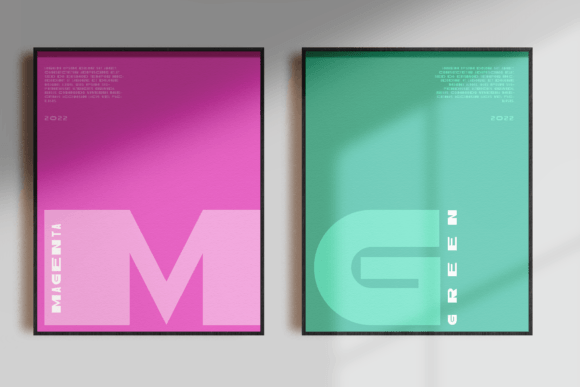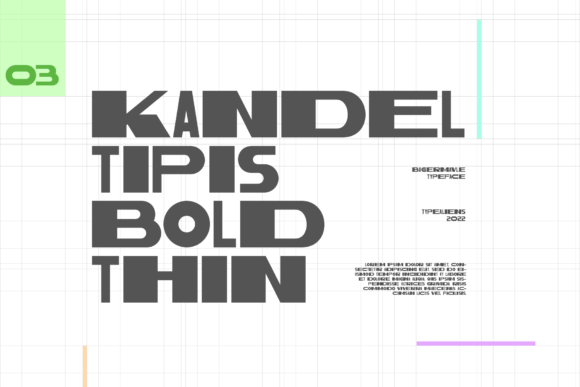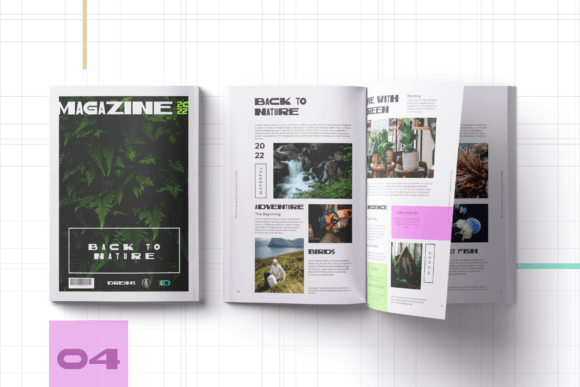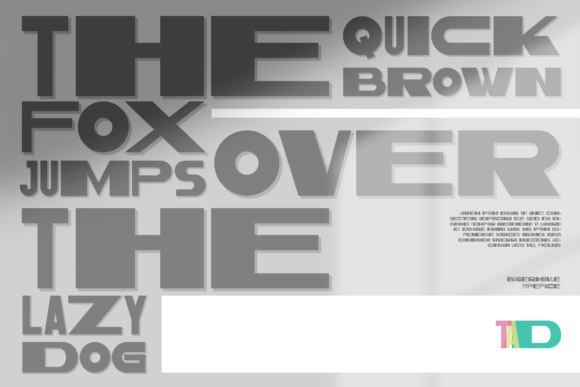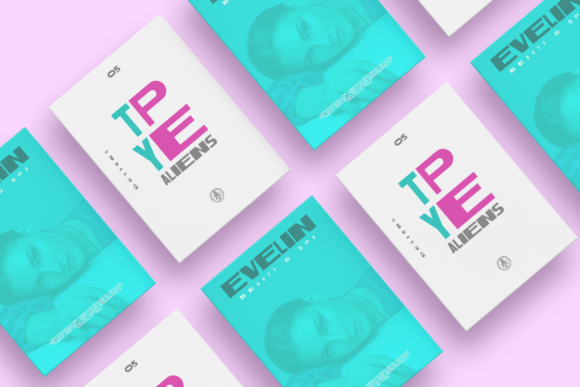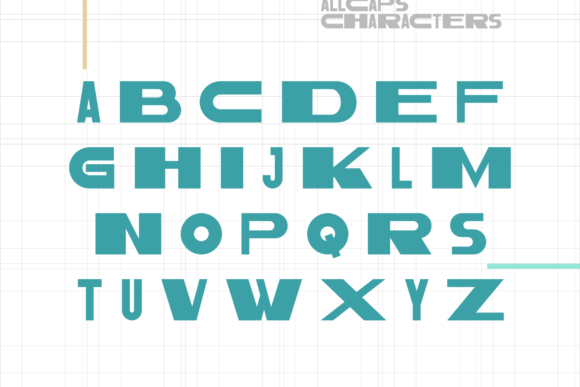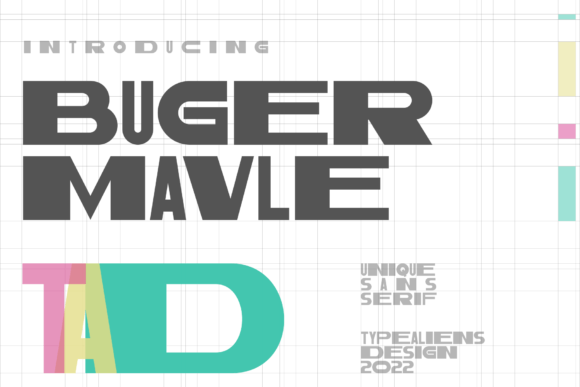
The Bugermavle Font: Elevate Your Designs with a Unique Display Font
Have you ever been in the middle of a design project, and suddenly, you just can’t seem to find the right font? I recall a particularly frustrating moment when I was working on a magazine layout, and my client requested a font that was “modern, clean, and eye-catching.” After scouring the internet for hours, I stumbled upon the Bugermavle font, and it instantly became the perfect fit. In this article, I’ll share my experience with this unique display font and provide a comprehensive guide on how to make the most of it.
- ✅ Unique and eye-catching design: Bugermavle is a standout font that will instantly elevate your designs.
- ✅ Modern and clean aesthetic: Perfect for designs that require a contemporary feel.
- ✅ Versatile: Suitable for a wide range of applications, from magazine titles to website headers.
- ⚠️ Limited use in body text: Due to its display nature, Bugermavle might not be the best choice for lengthy paragraphs.
- ⚠️ Some characters may require manual kerning: As with any font, you might need to adjust kerning for certain character combinations.
The Story Behind Bugermavle: Designer Inspiration
Bugermavle was designed with the intention of creating a unique and versatile display font. The designer aimed to craft a font that would be both modern and clean, making it perfect for a wide range of applications. While the exact story behind the font’s creation is unknown, it’s clear that Bugermavle has been carefully crafted to meet the needs of designers.
| Font Name | Bugermavle Font |
| Author | typealiens |
Q: What is the best way to use Bugermavle in my designs?
A: Bugermavle is best used as a display font, making it perfect for titles, headings, and other prominent text elements.
Q: Can I use Bugermavle for body text?
A: While Bugermavle can be used for body text, it may not be the most readable choice due to its display nature. It’s recommended to use it for shorter paragraphs or headings.